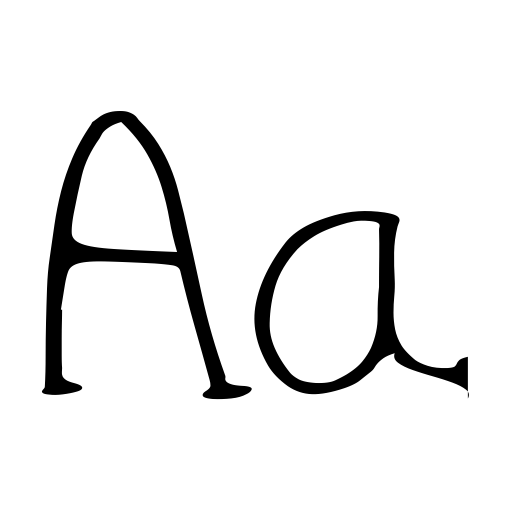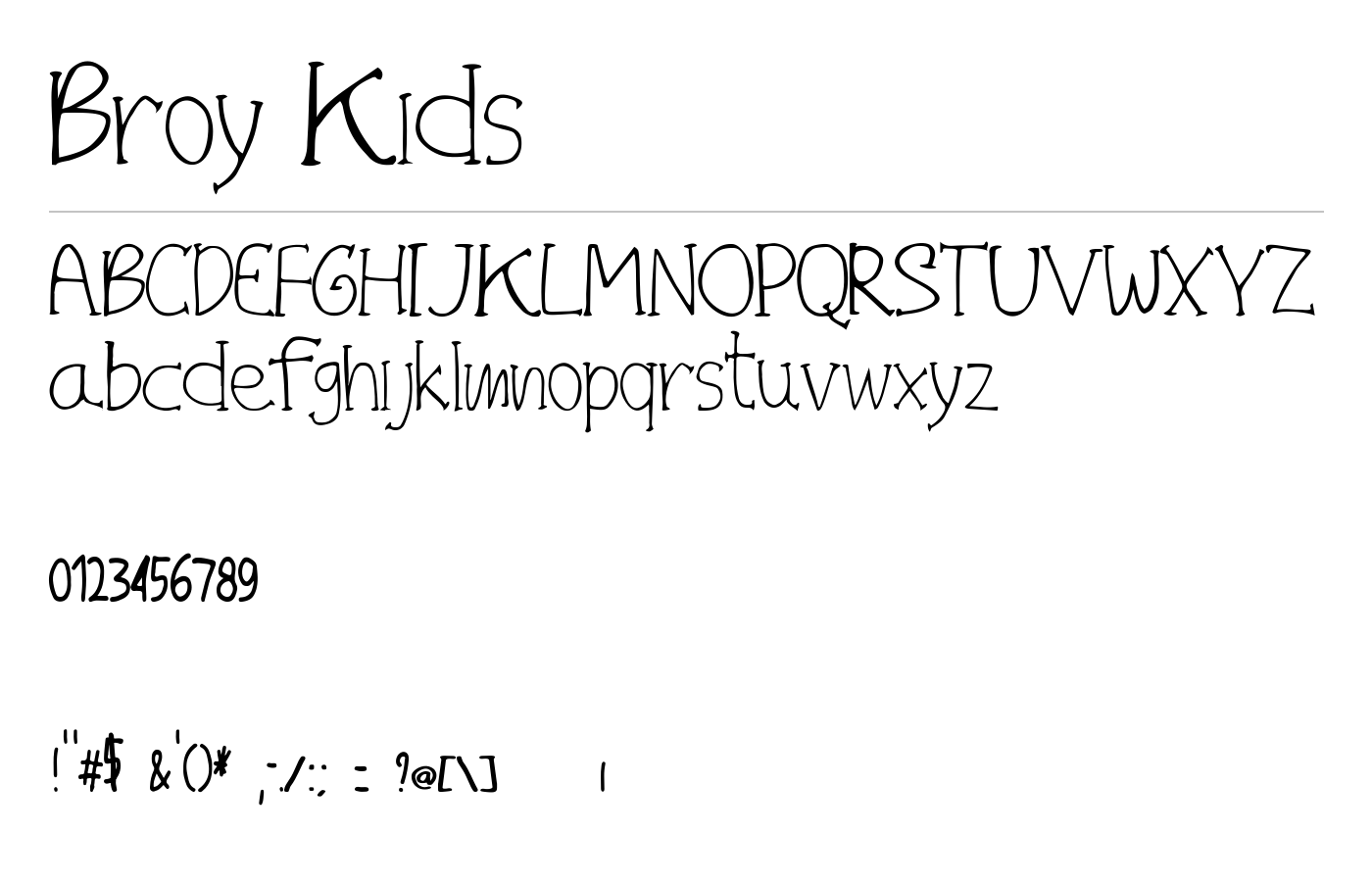
Broy Kids is a playful and whimsical handwritten font featuring tall, slender letterforms with quirky, uneven strokes that add a friendly and childlike charm. Its light weight and irregular details make it ideal for designs aimed at children or casual, fun projects. This font works well in logos, invitations, posters, and any creative design needing an approachable, joyful touch.
Broy Kids Font
About Broy Kids Font
| Font family | Broy Kids Font |
| Designer | Hanif Muchtar |